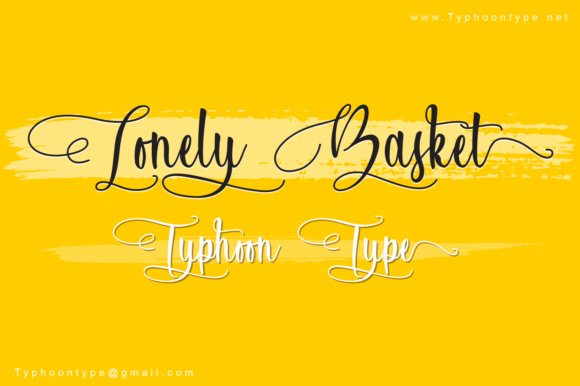
Lonely Basket Font
About Lonely Basket Font
The Lonely Basket font is a stunning handwritten typeface that features decorative swashes.
It’s elegant and feminine, making it the perfect font for wedding invites, thank you cards, and more. Works great for both personal and business use that require a human touch.